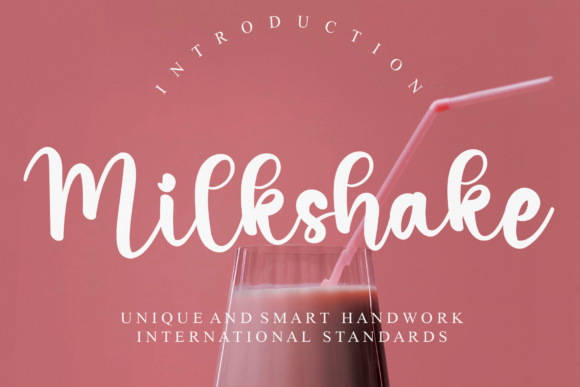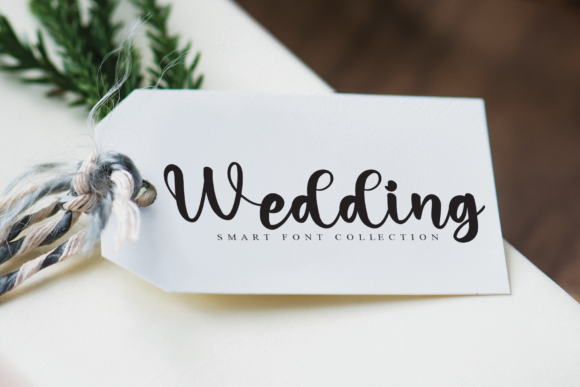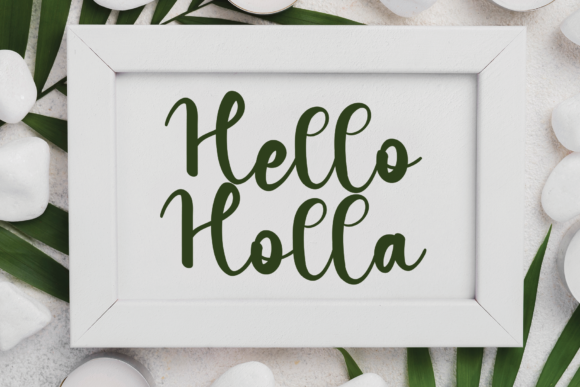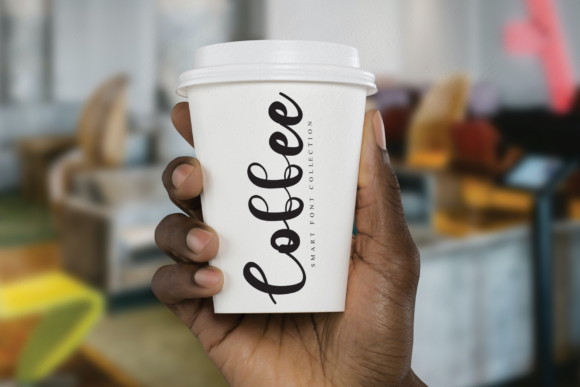
Milkshake Font
About Milkshake Font
Milkshake is a lovely and timeless handwritten font. It is the best choice for creating eye catching logos, branding and quotes. Every letter has a unique and beautiful touch, which will make your design come alive!